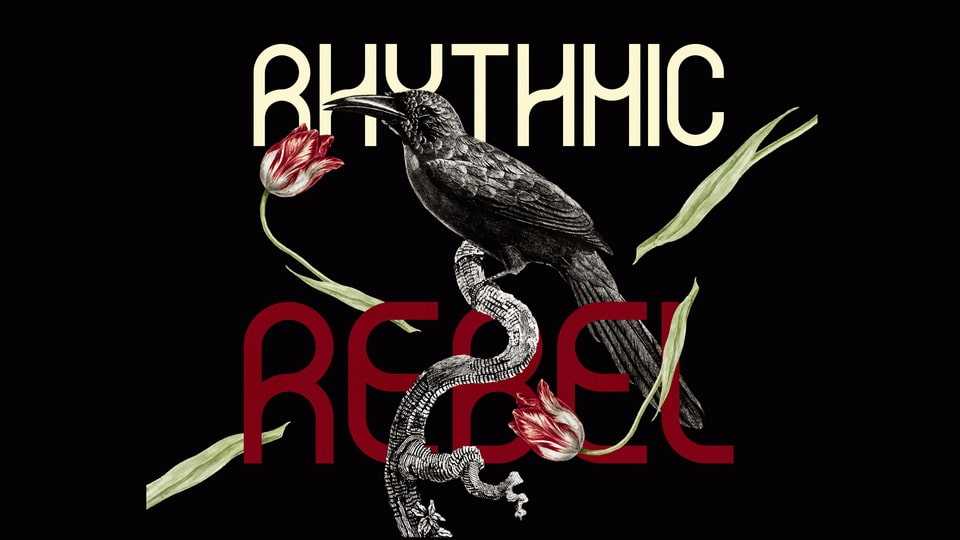
Download Rhythmic Rebel font, a typeface that dances between simplicity and audacity. Crafted on a single grid, it delivers a clean, flowing design with a subtle, rebellious twist.
Designer: RabenRifaie Studio